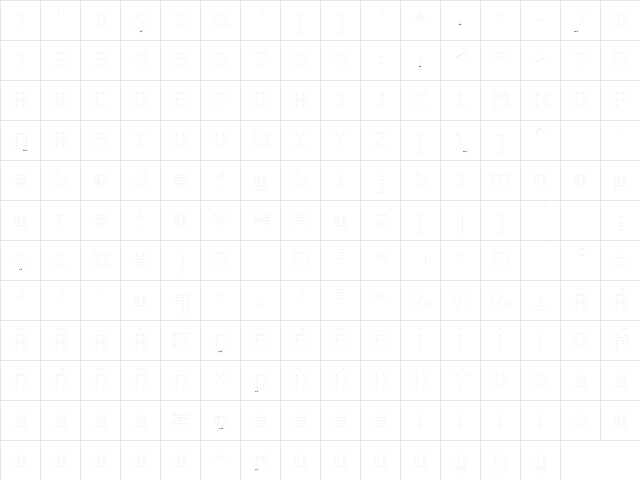
YardmasterOnlShaD Regular Free Font
YardmasterOnlShaD Regular
Design Context for YardmasterOnlShaD
YardmasterOnlShaD is a composed and adaptable typeface that performs quietly and consistently across a wide range of design contexts.